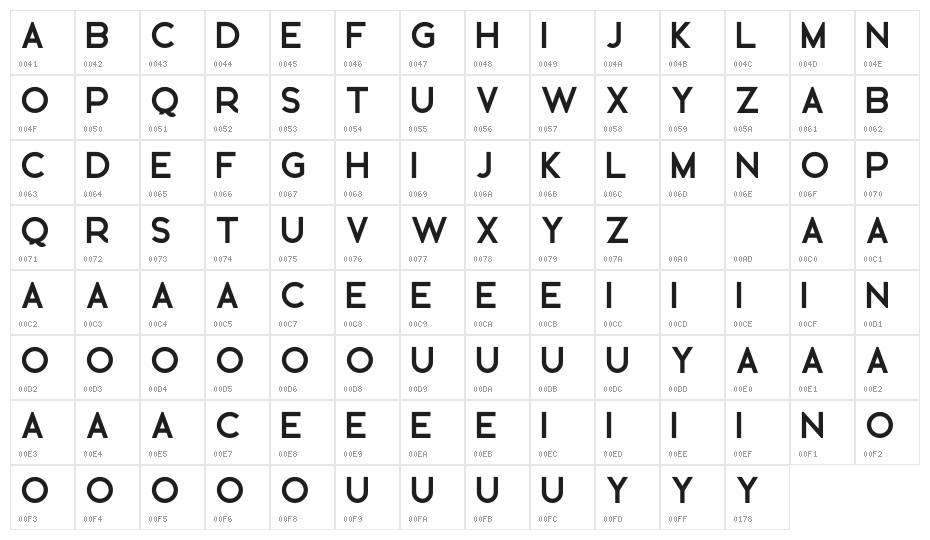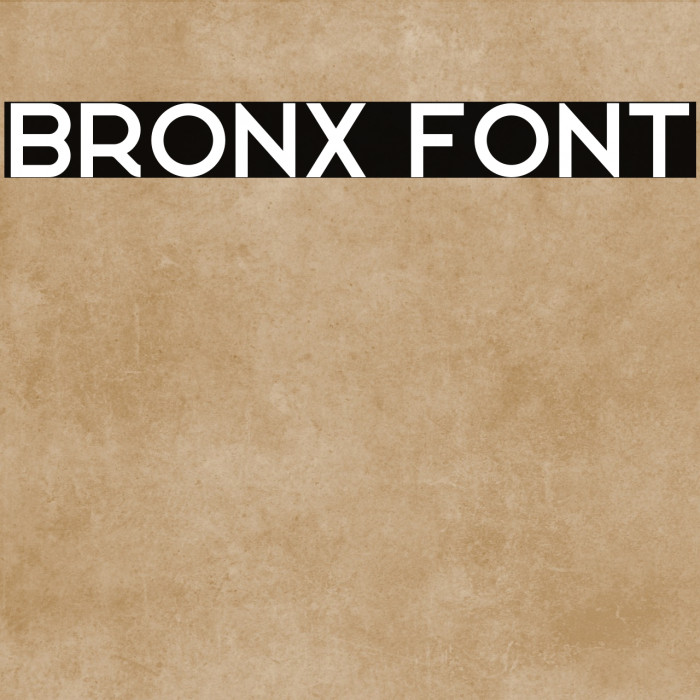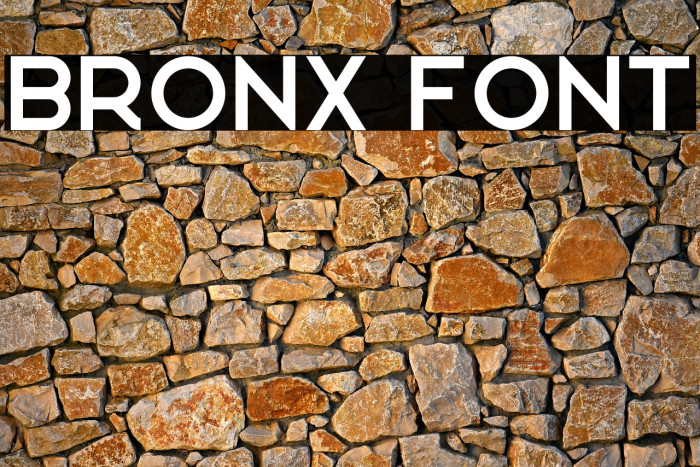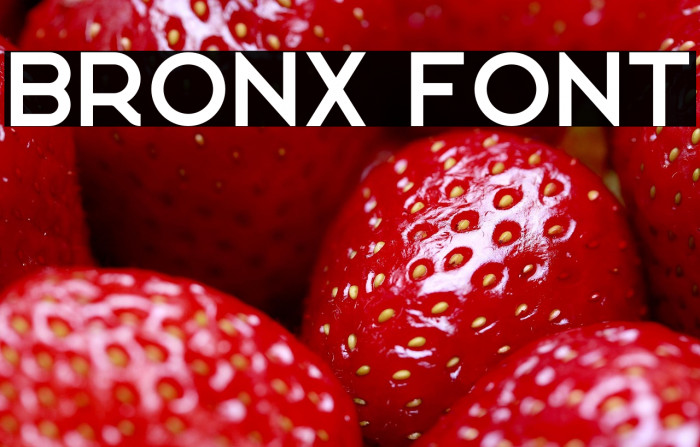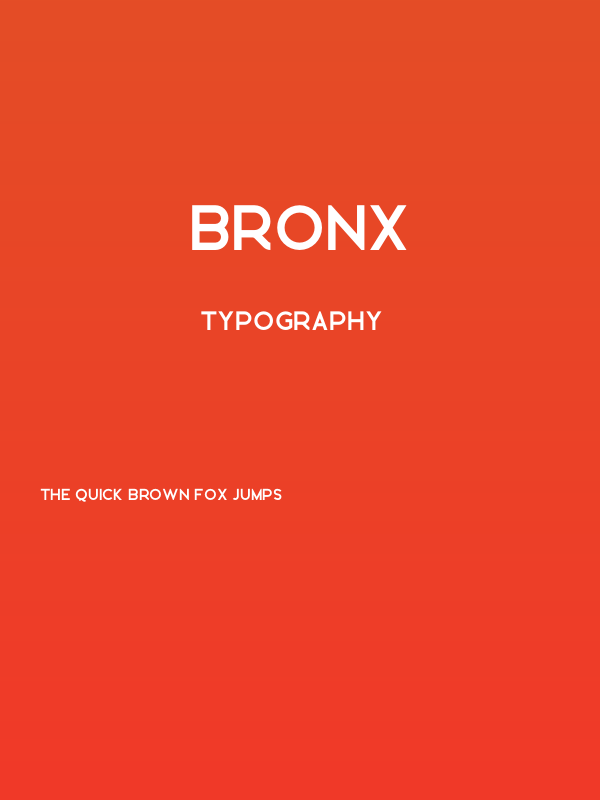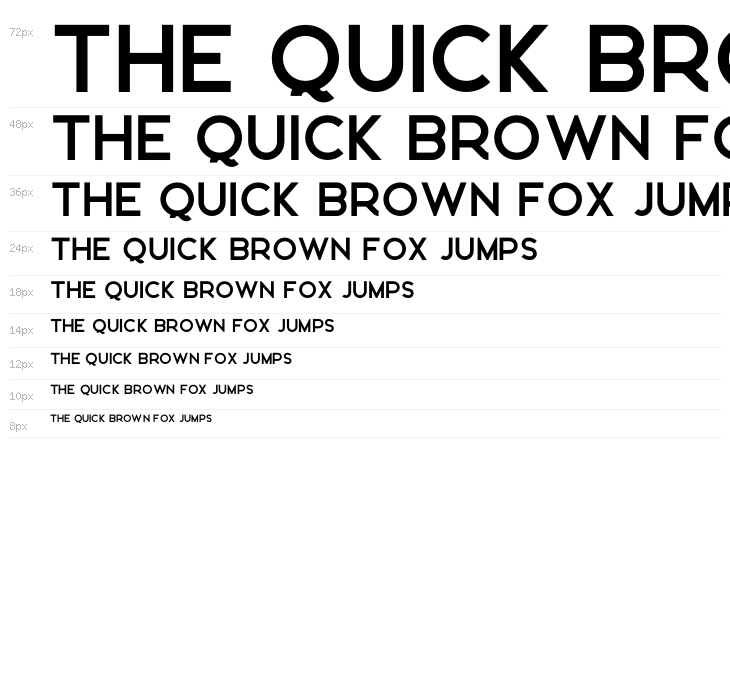
Bronx Font
Bronx Description
This font features a clean and modern sans-serif design, characterized by its bold and uniform stroke width. The uppercase letters are well-proportioned with a geometric influence, offering a contemporary and professional appearance. The absence of serifs gives it a sleek and streamlined look, making it highly legible and versatile for various design applications. The characters are evenly spaced, contributing to its readability and aesthetic appeal. This font is ideal for projects that require a strong and impactful visual presence.
| Proposed Projects | Ideal for branding, advertising, headlines, and digital interfaces where a strong, modern look is desired. |